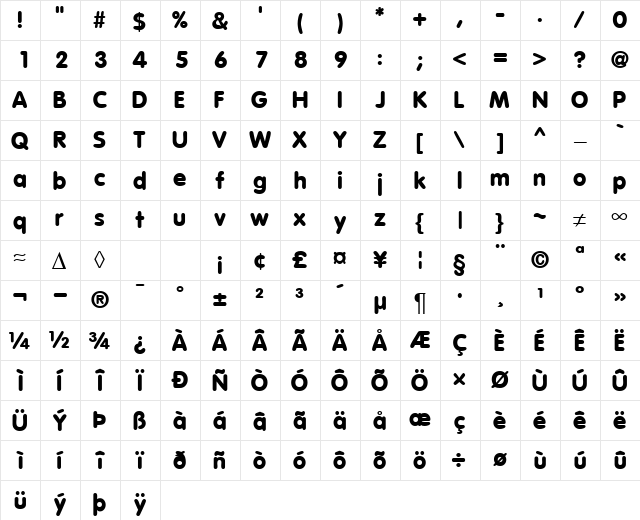
VagBlack Regular
Design Context for VagBlack Typeface
VagBlack offers clean, dependable letterforms without strong stylistic allegiance, making it a practical choice for designers who need flexibility.